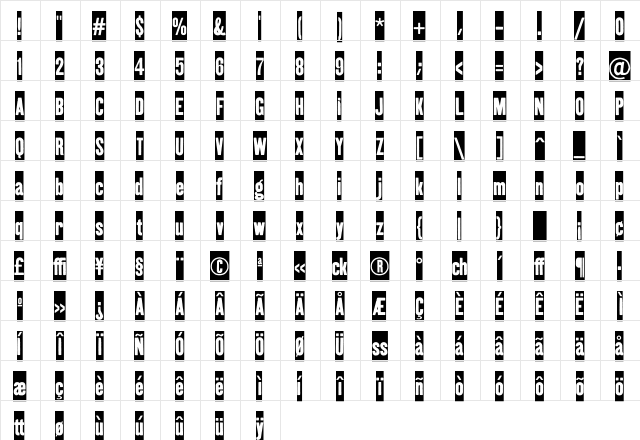
Kipp No2
Design Context for Kipp Typeface
Kipp offers clean, dependable letterforms without strong stylistic allegiance, making it a practical choice for designers who need flexibility.
Pro Tip: Pair Kipp with a font of contrasting weight or personality to build a more expressive typographic hierarchy.